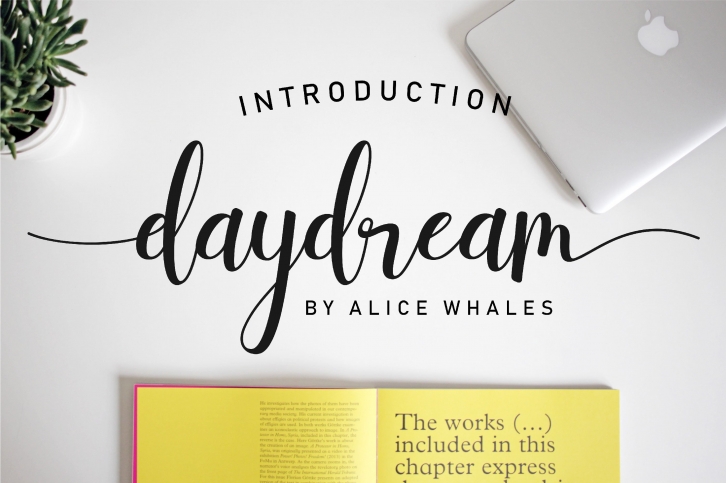
Daydream is a new fresh, modern calligraphy typefcace, elegant, beautiful and dancing baseline! This font that combined brush lettering with traditional hand writing. Looks great on personal branding, business cards, stamps, quote posters and greeting cards. And don't forget wedding season! This would be gorgeous font for your design projects.